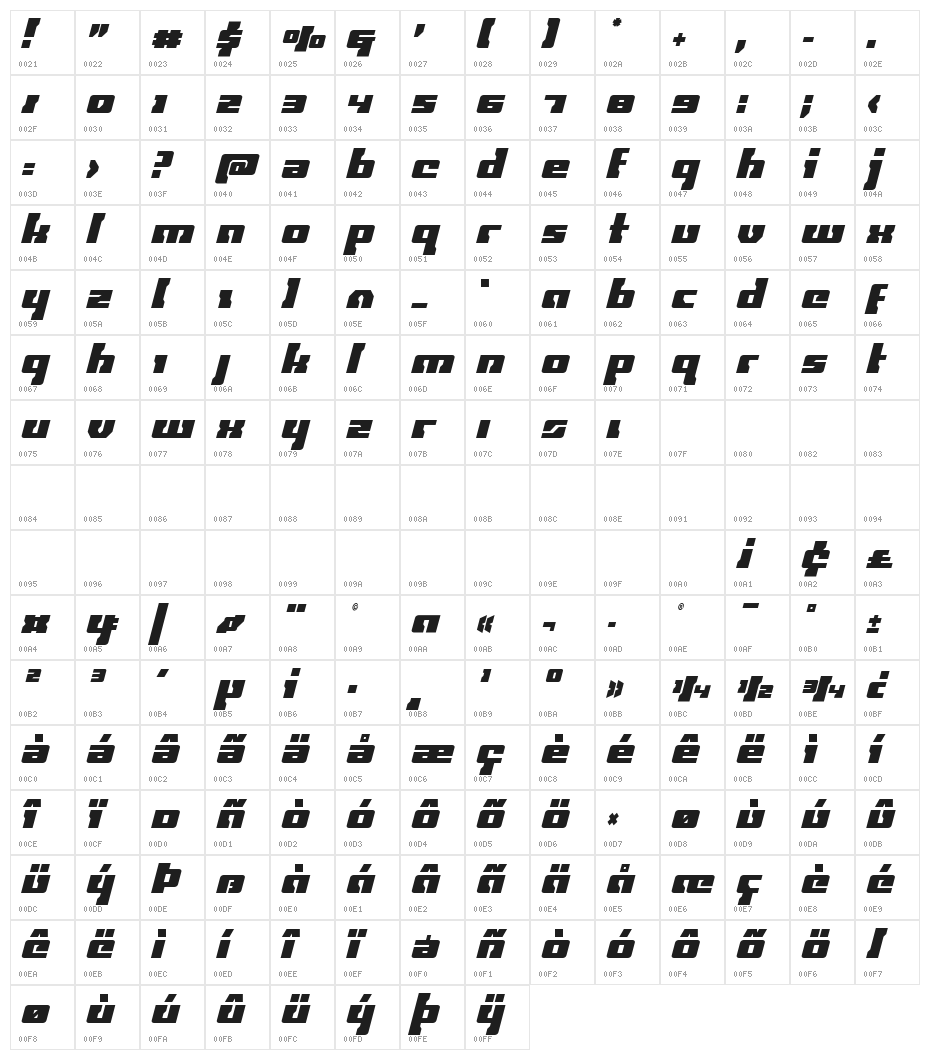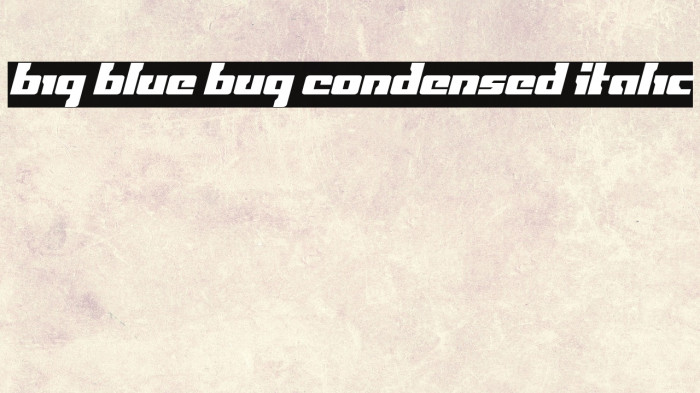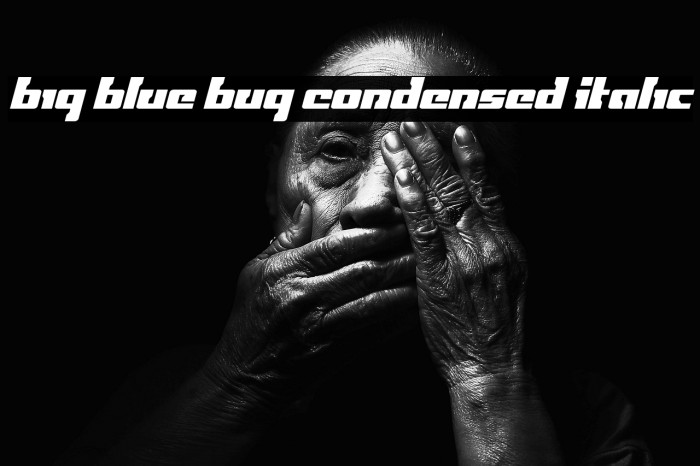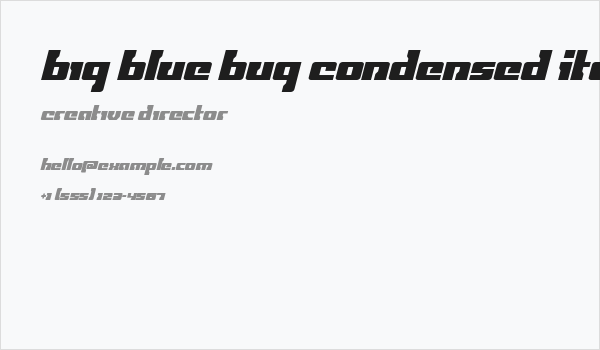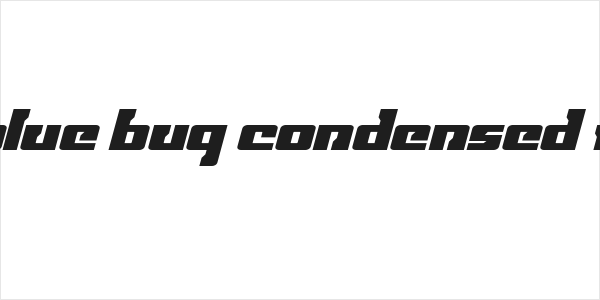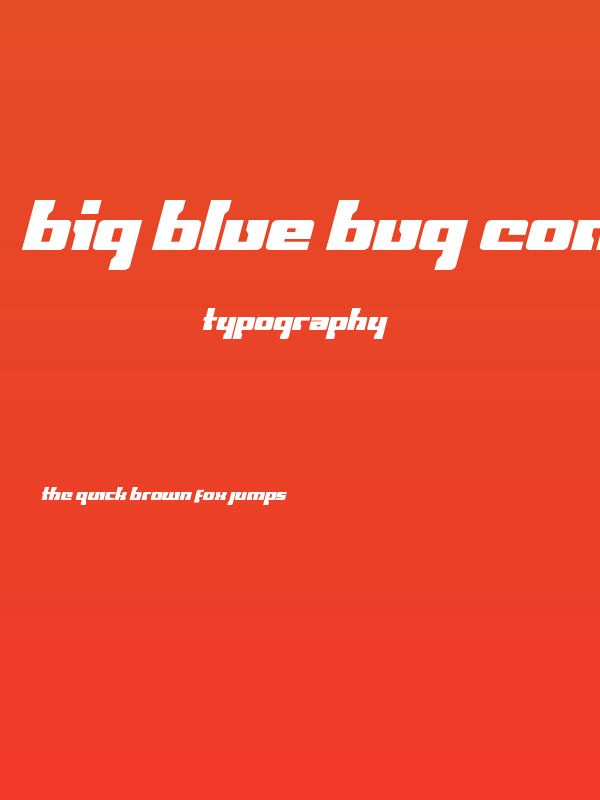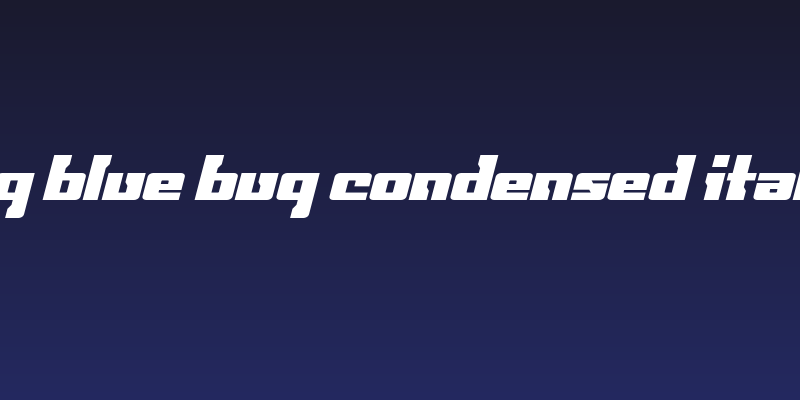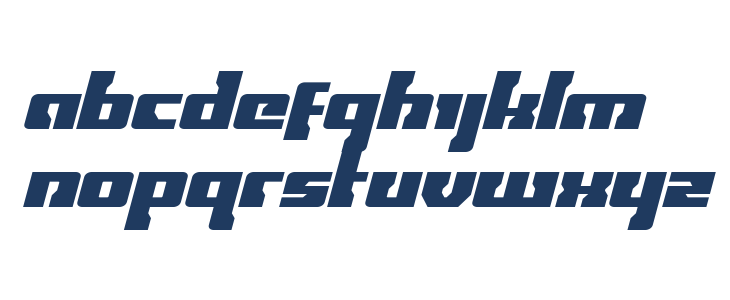
Big Blue Bug Condensed Italic Font
Big Blue Bug Condensed Italic Description
This font features a bold and dynamic style with a condensed and italicized form. The characters are designed with sharp angles and a strong geometric influence, giving it a modern and edgy appearance. The uppercase and lowercase letters maintain a consistent slant, enhancing the italic effect. The numbers and special characters follow the same design principles, ensuring uniformity across all glyphs. The font's condensed width allows for efficient use of space, making it suitable for impactful headlines and titles. Its bold weight and high contrast between thick and thin strokes add to its striking visual appeal.
| Proposed Projects | Ideal for sports branding, dynamic posters, modern advertisements, and eye-catching headlines. |